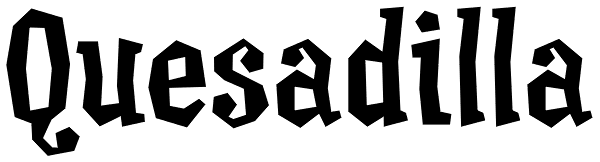
Quesadilla
Quesadilla is a fun display typeface with a Latin American feel. Great for menus, children's books, and scrapbooking, it would make a nice logo for a Mexican restaurant. It's available in four flavors: regular, inline, shadow and dropshadow. The...
Quesadilla
Quesadilla Inline
Quesadilla Shadow
Quesadilla Dropshadow